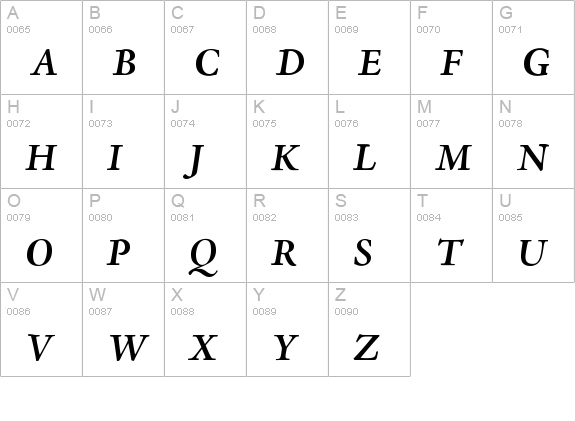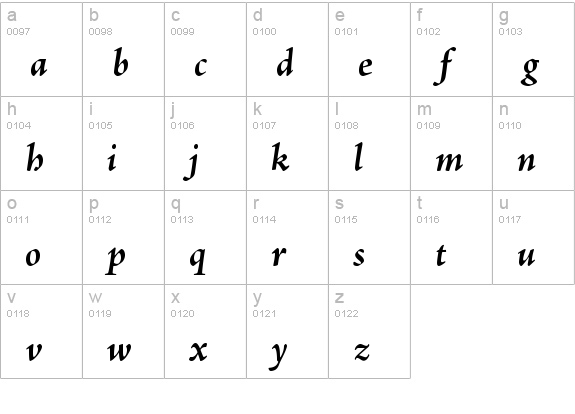
Adobe Jenson Pro Bold Italic is a strong, high-contrast, italic variant in the Adobe typeface family \xE2\x80\x94 well suited to headlines, attention-grabbing titles, and strong calls-to-action.
Adobe Jenson Pro Bold Italic is a bold and stylish font that commands attention with its elegant curves and strong presence. This font exudes sophistication and professionalism, making it perfect for any design project that requires a touch of class. The sleek italics add a dynamic flair to any text, making it stand out on the page. And the best part? Adobe Jenson Pro Bold Italic is available for free download at FontsMarket.com. This means you can elevate your design projects with this premium font without breaking the bank. Don't miss out on the opportunity to add this versatile and eye-catching font to your collection today!